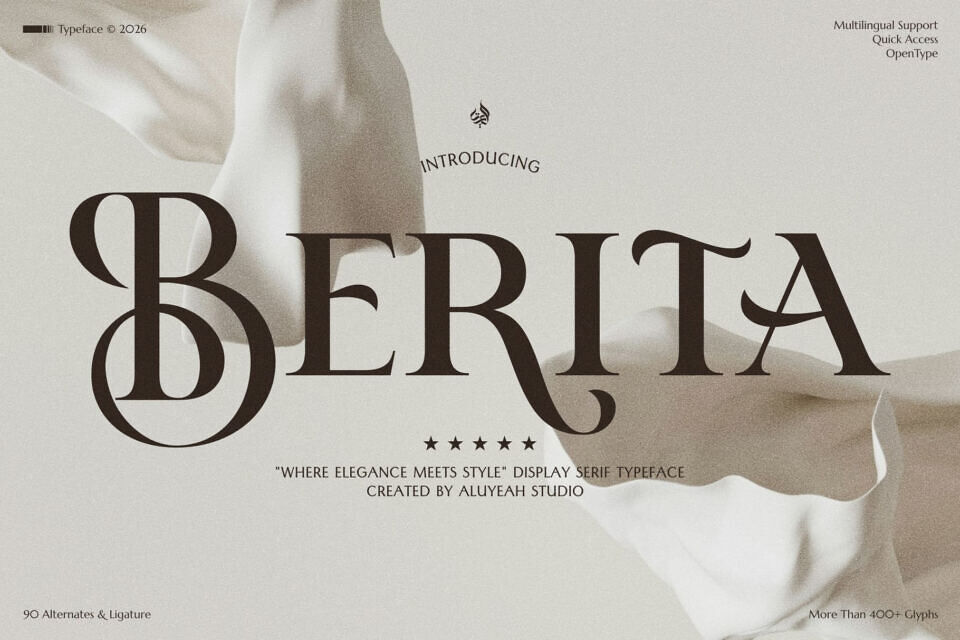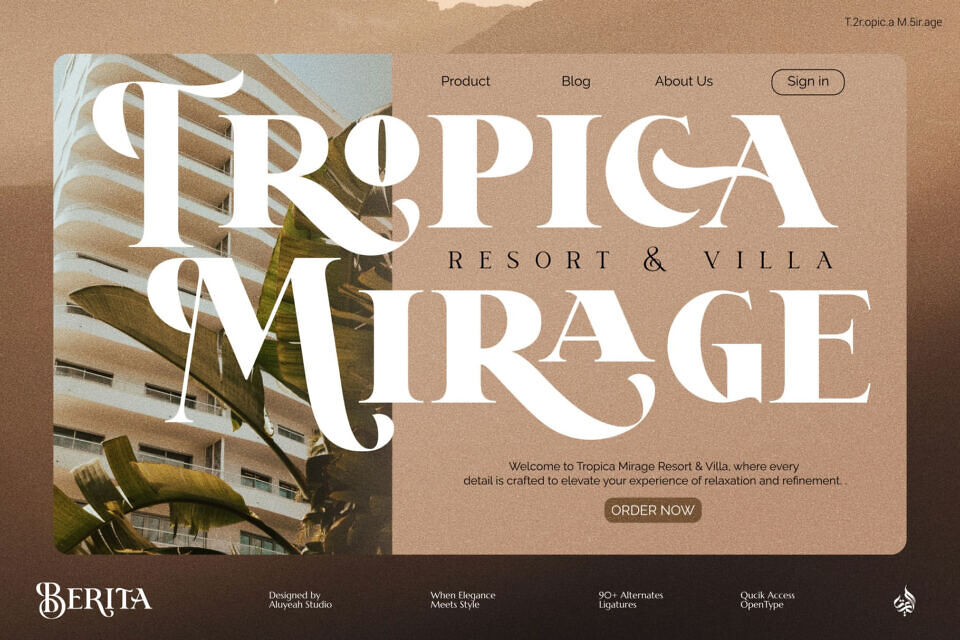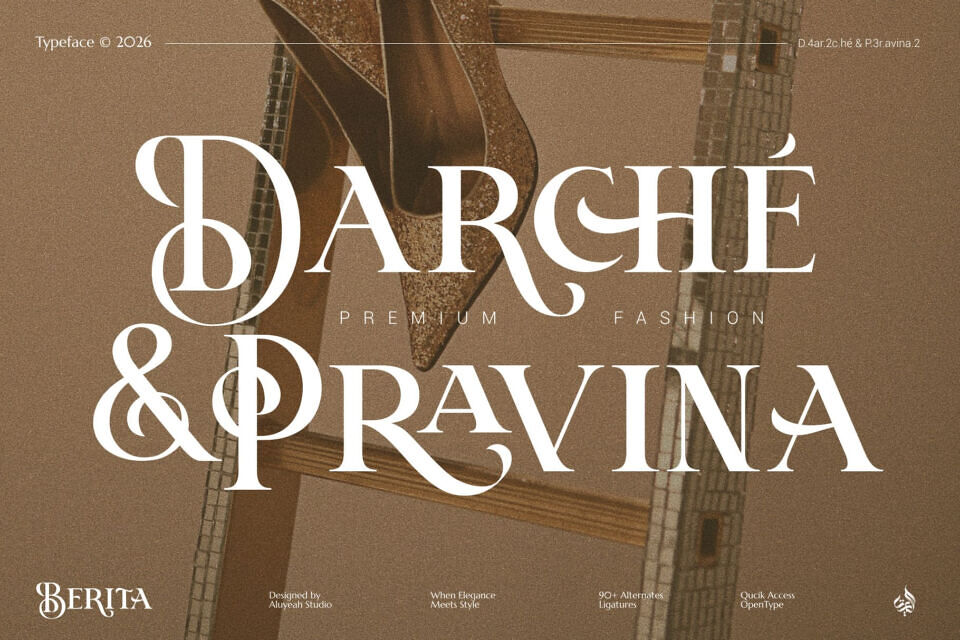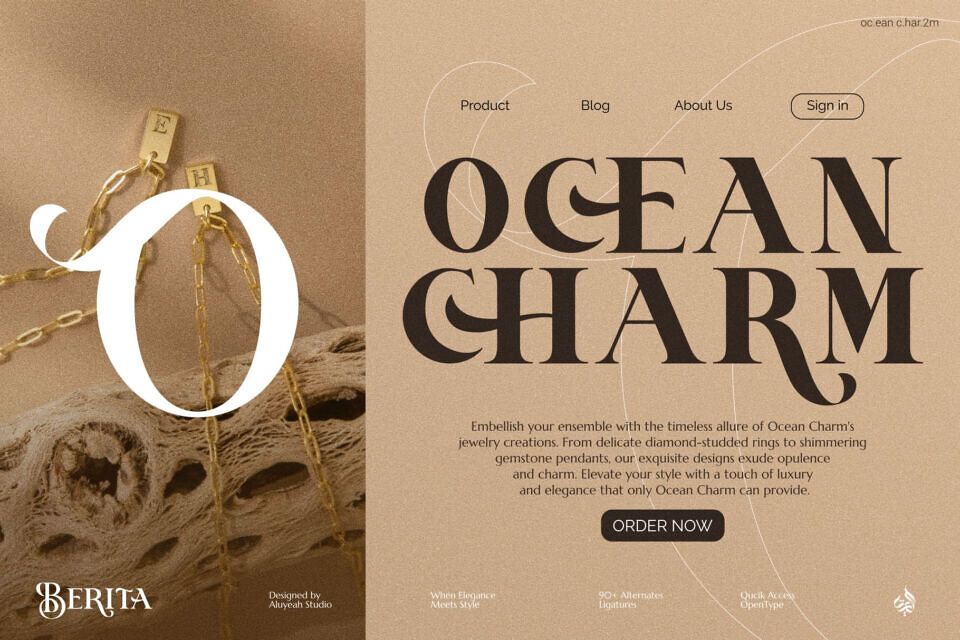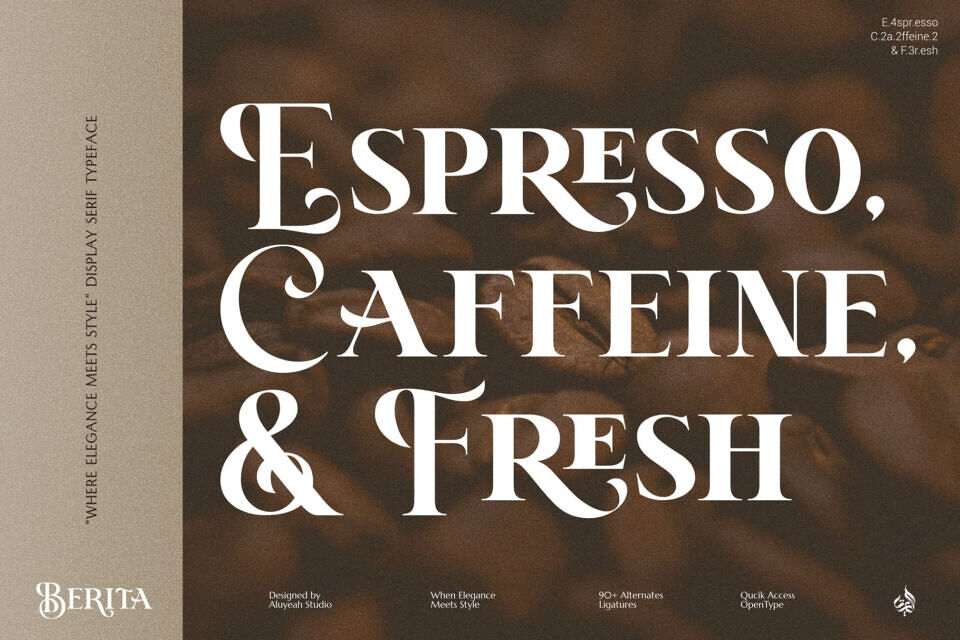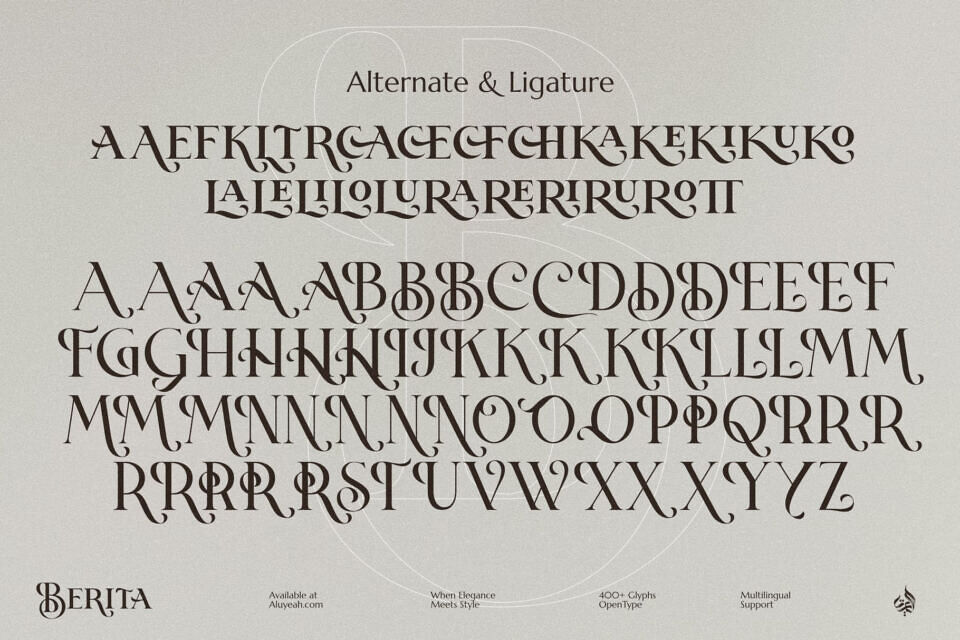
Berita Font
Experience sophistication like never before with our Berita, “where elegance meets style” display font that adds a touch of glamour to any design.
With its elegant curves and sophisticated details. Featuring OpenType, multilingual, and quick access to over 90 alternates and ligatures. Whether it’s a branding project or a wedding invitation, Berita suits every design endeavor effortlessly.
Designed by: Aluyeah Studio